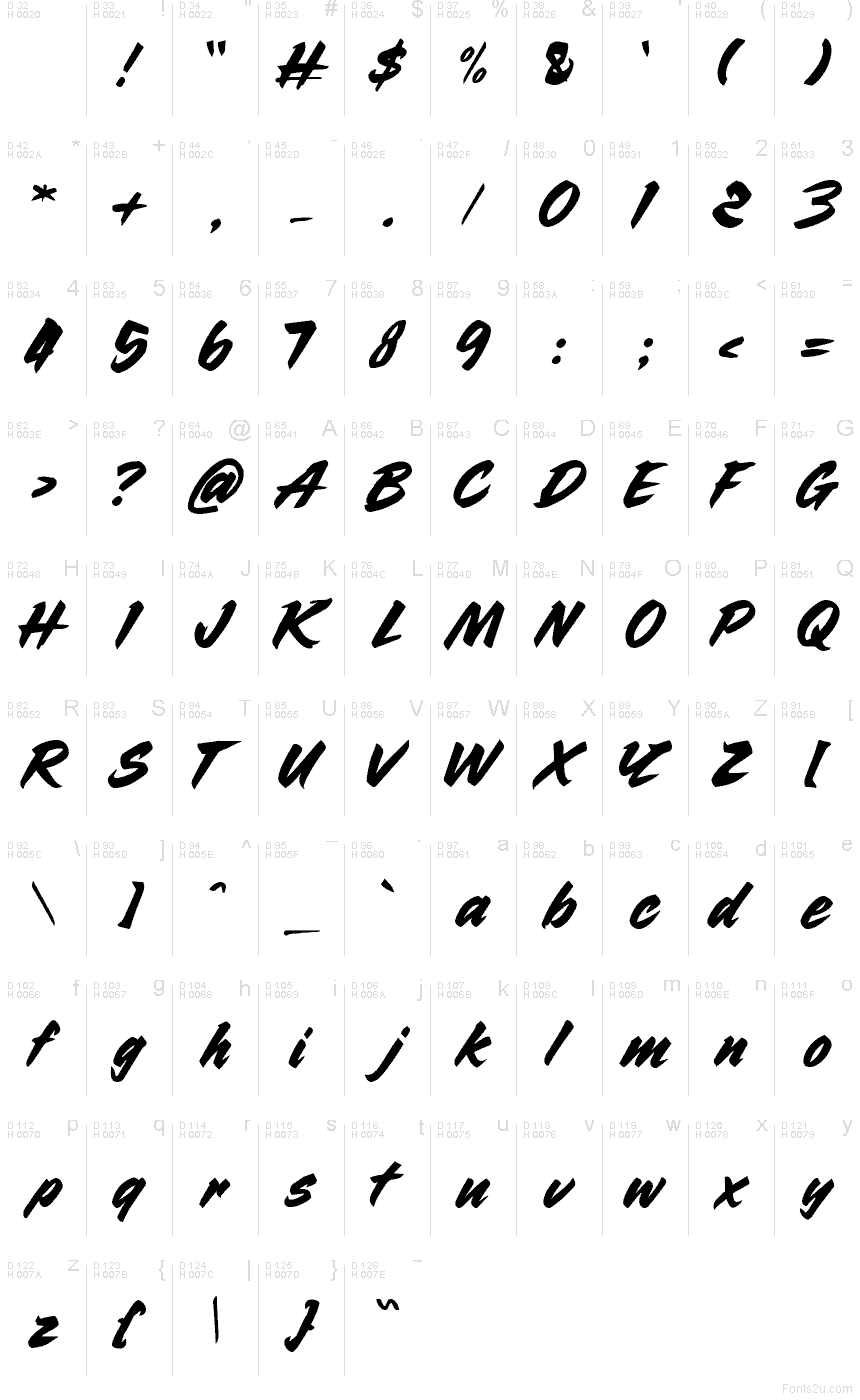
Behind the Gesture
Behind the Gesture font by BlackFridayFont FMF is a free brush script typeface that captures the snap and rush of a marker dragged across paper. Its tight, forward-leaning letters, bold weight, and slightly gritty edges give every word a sense of speed and confidence, like a signature scrawled in one breath. The rhythm feels energetic but controlled, making it easy to read even when it’s shouting for attention at large sizes.
Using Behind the Gesture, your text naturally takes on a streetwise, athletic attitude that shines on sports branding, social media promos, music covers, product packaging, apparel graphics, and loud event posters. This free font works beautifully when you keep it for short phrases or headlines and let it lead the composition. For a clean, balanced look, pair it with a simple geometric sans serif set smaller for supporting details.